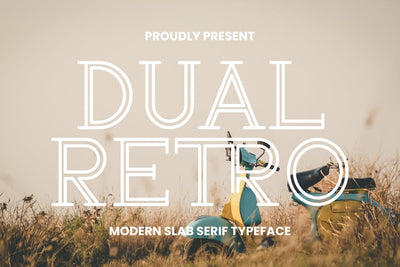
Dual Retro - Modern Slab Serif Font
Hi, Introducing Dual Retro - Modern Slab Serif Font
Modern Slab Serif Font with vintage, dashing, masculine style, this font is cool for quotes, disc covers, mugs, posters, black boards, price tags,